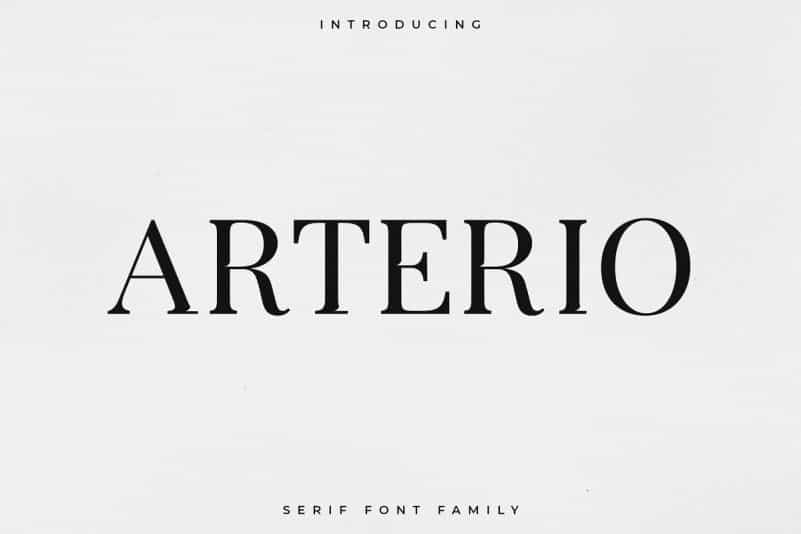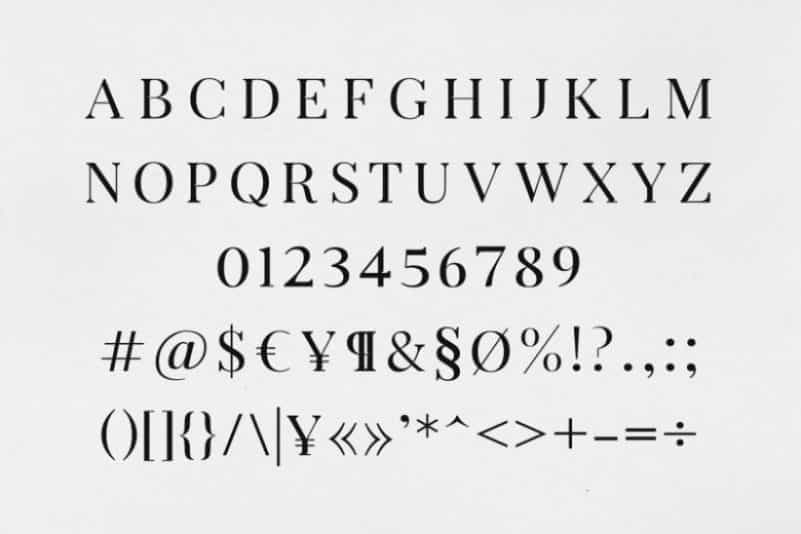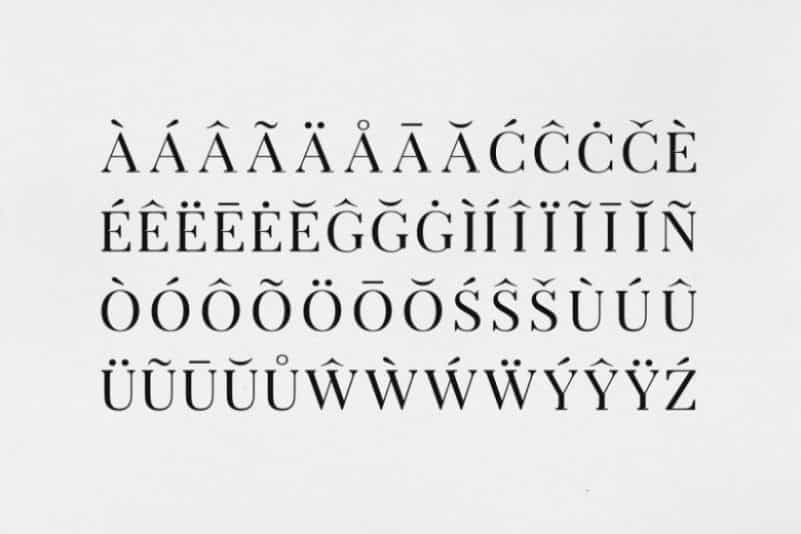
Introducing Arterio Font. It is created and posted by RC graphics. This is a very beautiful and simple serif font. It is a multi-functional font that is perfect for creating powerful and timeless branding. Arterio is ideal for any branding, logos, magazines, videos, weddings, quotes, print, packaging’s, websites, clothing designs and much more.